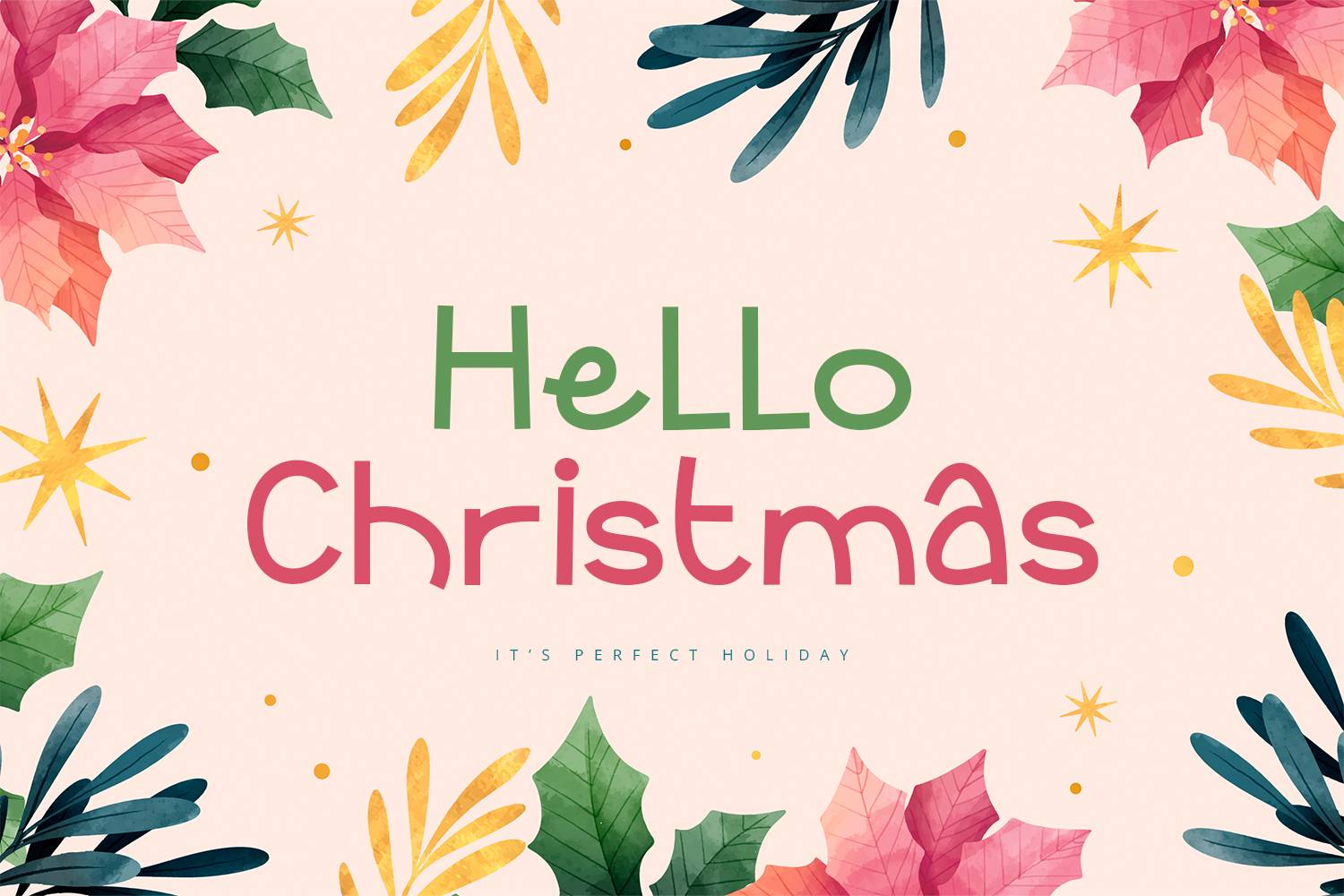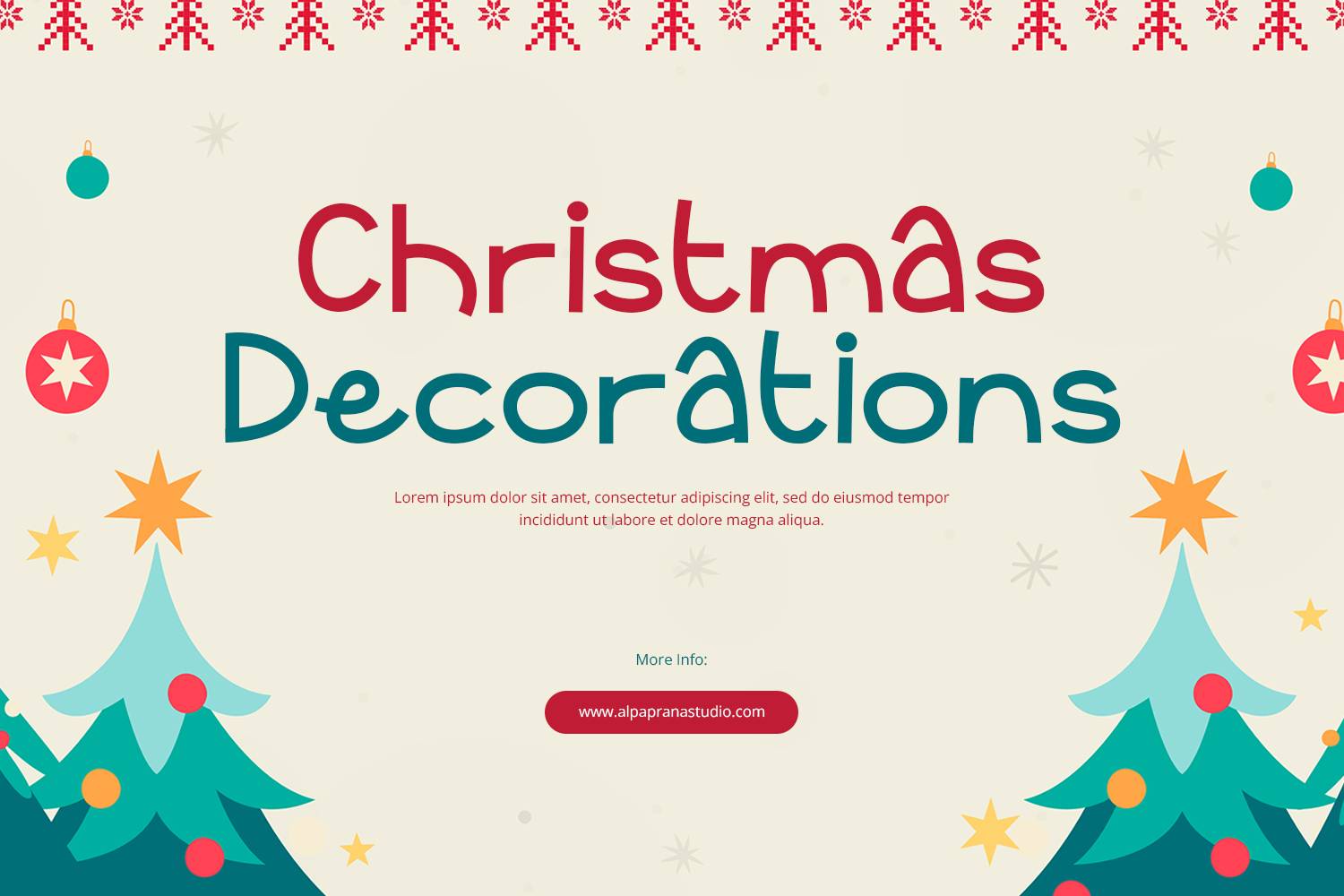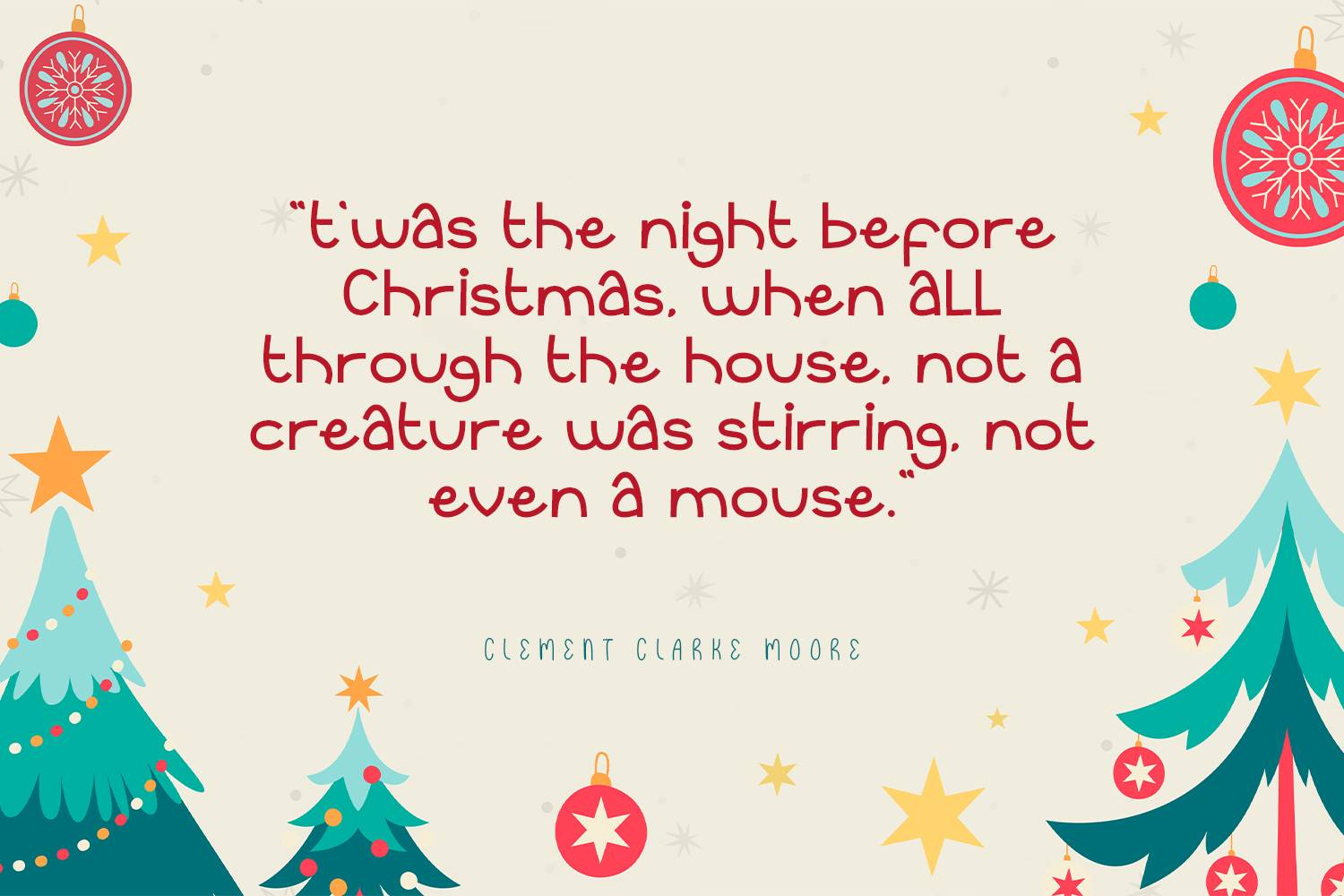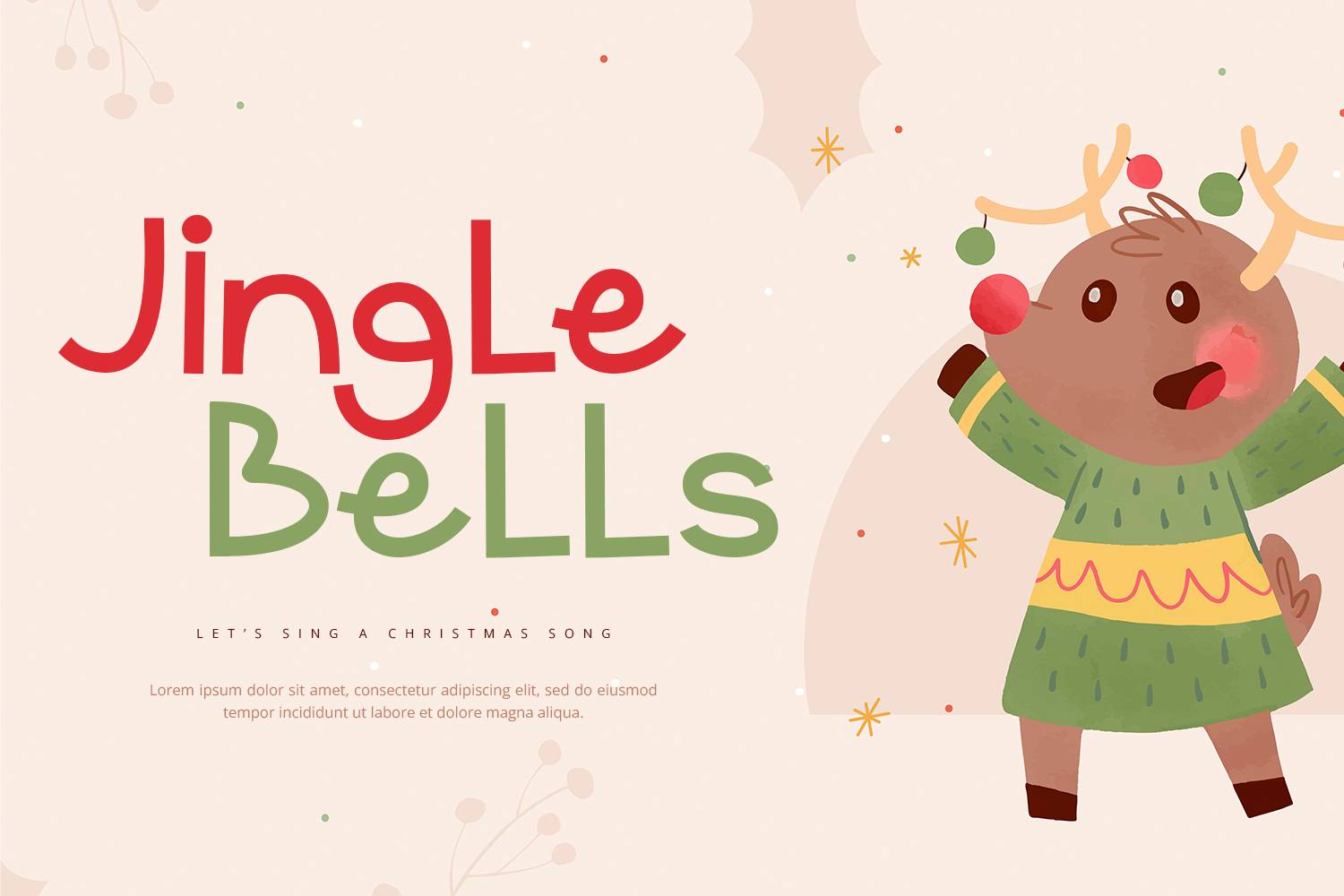
Magic Spark is a playful sans serif font with a whimsical and hand-drawn feel, featuring tall, narrow letterforms with gentle curves and quirky, unique shapes like the pointed M and distinctive lowercase g. Its light weight and open spacing give it an airy, friendly personality, making it perfect for creative headlines, children’s books, and fun branding that aims to convey imagination and lightheartedness. This font stands out where a touch of charm and individuality is desired, adding character without sacrificing readability.
Magic Spark Font
About Magic Spark Font